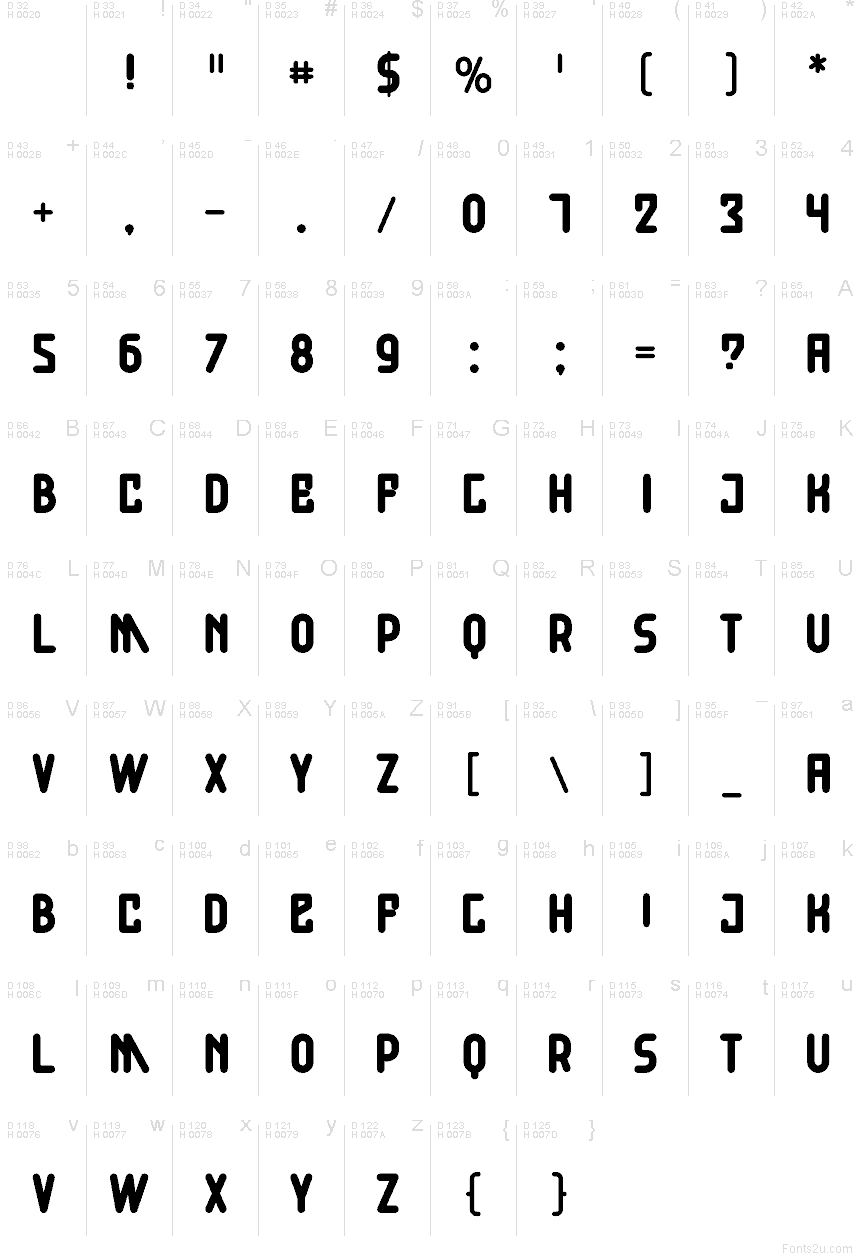
Heref
Heref font by Ffeeaarr is a free decorative sans typeface with a bold, almost sculptural presence. Each letter feels carved from a solid block, with thick rounded strokes cut by sharp, angular notches that catch the eye like light on metal. The rhythm is tight and punchy, giving words a chunky, futuristic vibe that still feels approachable and playful rather than cold.
Using Heref, you get a strong wordmark-style look straight out of the box, so it shines on posters, game titles, album covers, tech branding, packaging, and bold event flyers. This free font loves to be set large, where its cut-out details and smooth corners really show. For body text, pair it with a simple, neutral sans in a lighter weight to keep the focus on Heref’s distinctive forms.